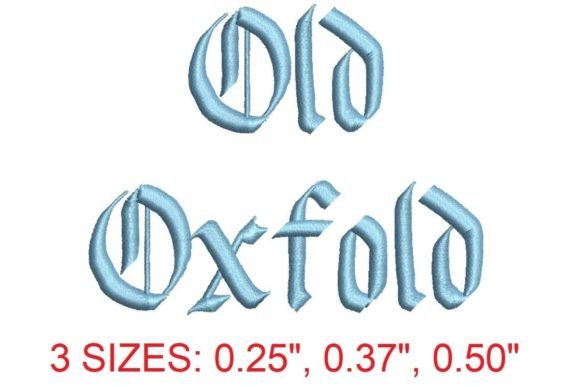
Old Oxford Embroidery Font Review
As a designer with years of experience in embroidery, I’ve seen countless fonts come and go. But the Old Oxford Embroidery Font stands out for its timeless elegance and versatility. It’s the kind of design that feels right at home on a variety of projects, from personalized gifts to commercial embroidery. In this review, I’ll walk through how it performs in real-world scenarios and where it truly shines.
The First Impression: Classic Elegance
When I first laid eyes on the Old Oxford Embroidery Font, I was struck by its refined aesthetic. The letterforms are intricate yet balanced, with subtle flourishes that give it a handcrafted feel. This font isn’t just about style—it carries a sense of tradition and sophistication that makes it ideal for projects aiming to evoke nostalgia or formality.
The layout is clean and easy to read, which is crucial when working with embroidery. Whether you’re stitching a baby onesie or a custom tote bag, the font maintains its visual personality without becoming overwhelming. It’s the kind of design that can be both decorative and functional, depending on how you use it.
Real-World Use Cases: Where It Fits Best
I recently worked on a custom embroidered tote bag for a client who wanted something elegant but not too flashy. The Old Oxford Embroidery Font was the perfect fit. It added a touch of class without being overly ornate, making it suitable for both casual and semi-formal settings.
This font also works well on sweatshirts, especially for back-to-school items. It pairs nicely with simple color schemes and can be used as a standalone design or as part of a larger composition. For example, pairing it with a small graphic or icon can create a cohesive look that appeals to a wide audience.
On baby items, like onesies or blankets, the Old Oxford Embroidery Font adds a personal and thoughtful touch. Its legibility ensures that names or initials are clear and easy to read, which is important for handmade products meant for children.
Performance in Different Embroidery Situations
In machine embroidery, the Old Oxford Embroidery Font holds up well, provided you pay attention to stitch density and stabilizer use. The intricate details require careful handling, especially on delicate fabrics. If you’re working with thin or stretchy materials, you may need to adjust your hoop size or add extra stabilizer to prevent puckering or distortion.
For applique designs, the font works well when combined with contrasting thread colors. Satin stitch and fill stitch techniques can bring out the details, while running stitch might be better suited for simpler versions of the design. It’s also worth noting that the font may not be ideal for very small hoop sizes, as some of the finer details could get lost.
When it comes to curved surfaces, like caps or hats, the Old Oxford Embroidery Font requires careful placement. The curves can affect how the letters align, so it’s best to test it on a sample before committing to a full project.
Where to Be Cautious: Limitations and Considerations
While the Old Oxford Embroidery Font is beautiful, it’s not a one-size-fits-all solution. On dark fabrics, the contrast may not be as strong, so choosing the right thread color is essential. Similarly, on textured or thick fabrics, the font might not sit as smoothly, and you may need to adjust your stitching technique accordingly.
For layered garments or products that will see frequent washing, the font’s detail level could be a concern. Dense stitch areas may cause the fabric to wear faster, so it’s wise to test the design on a similar material before using it in a finished product.
Small lettering is another area where the font may not perform as expected. If you’re planning to use it for tags, labels, or tiny accents, you’ll want to ensure that the design scales properly and remains legible.
Impact on Visual Appeal and Customer Perception
Using the Old Oxford Embroidery Font can elevate the overall look of any handmade product. It adds a level of professionalism that resonates with customers looking for quality and attention to detail. For Etsy sellers or small shop owners, this font can help differentiate your offerings in a competitive market.
From a branding perspective, the font’s classic style supports consistency across different product lines. Whether you’re creating a line of personalized gifts or commercial embroidery pieces, it offers a reliable visual element that reinforces your brand identity.
Customers often appreciate the thoughtfulness behind a well-chosen font. A name or message stitched in Old Oxford can feel more meaningful, enhancing the giftability and emotional value of the finished product.
Practical Designer Notes: What to Check Before Using
Before jumping into a project, always test the Old Oxford Embroidery Font on scrap fabric. This helps you see how it looks in real life and identify any issues with stitch density or stabilizer use.
Whether you’re creating custom apparel, personalized gifts, or commercial embroidery, this font offers a refined look that can enhance the overall quality of your handmade products. Just remember to test it thoroughly and consider the practical aspects of your specific project before finalizing your design.